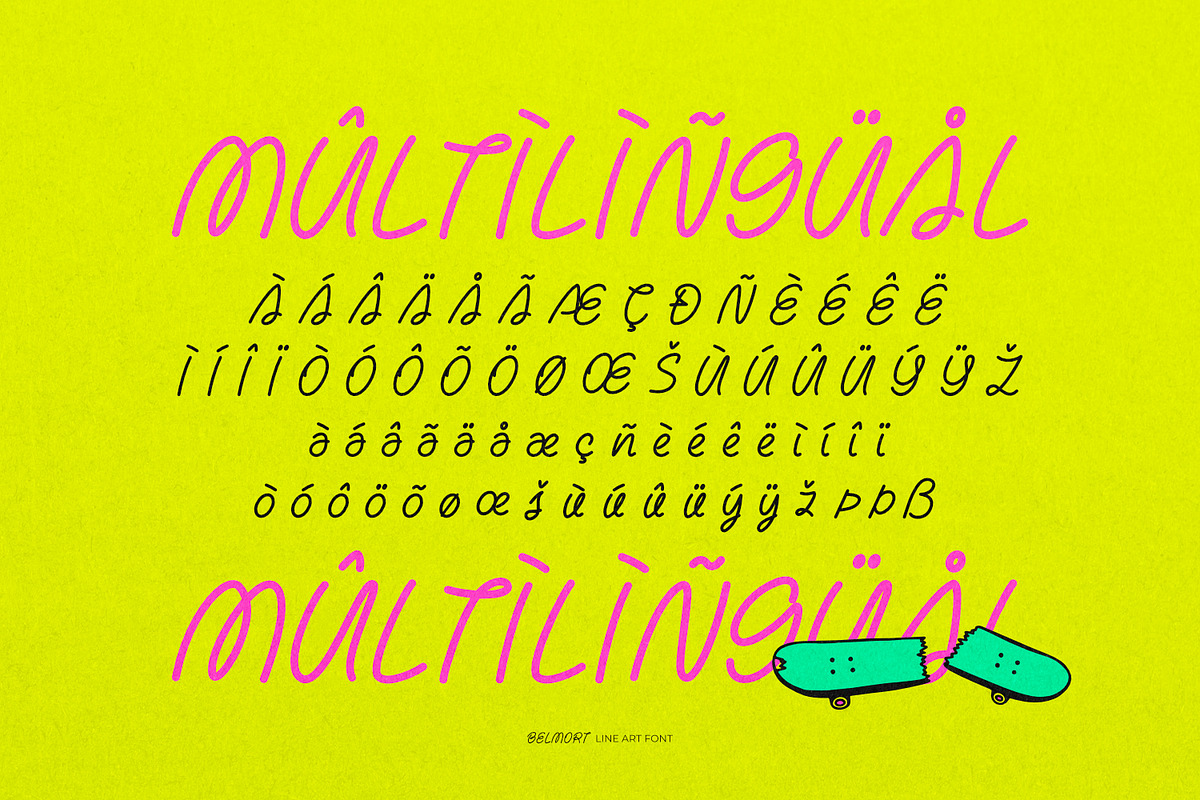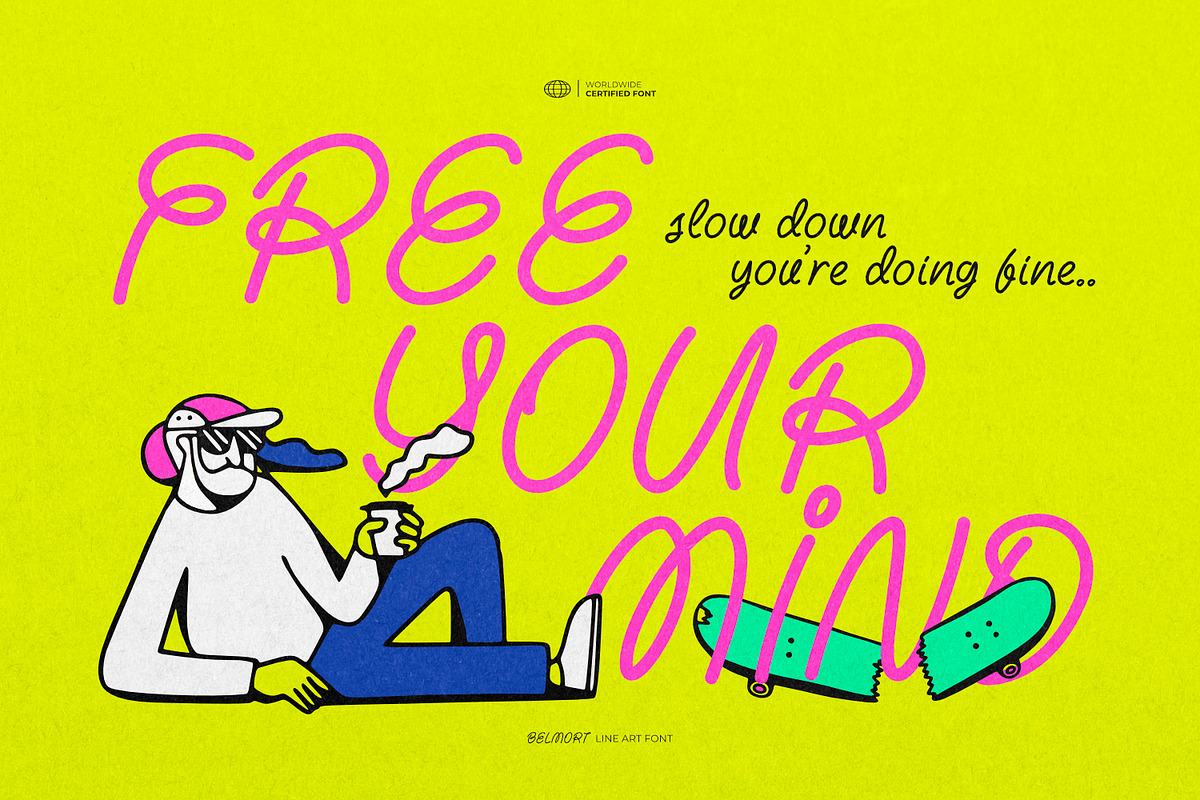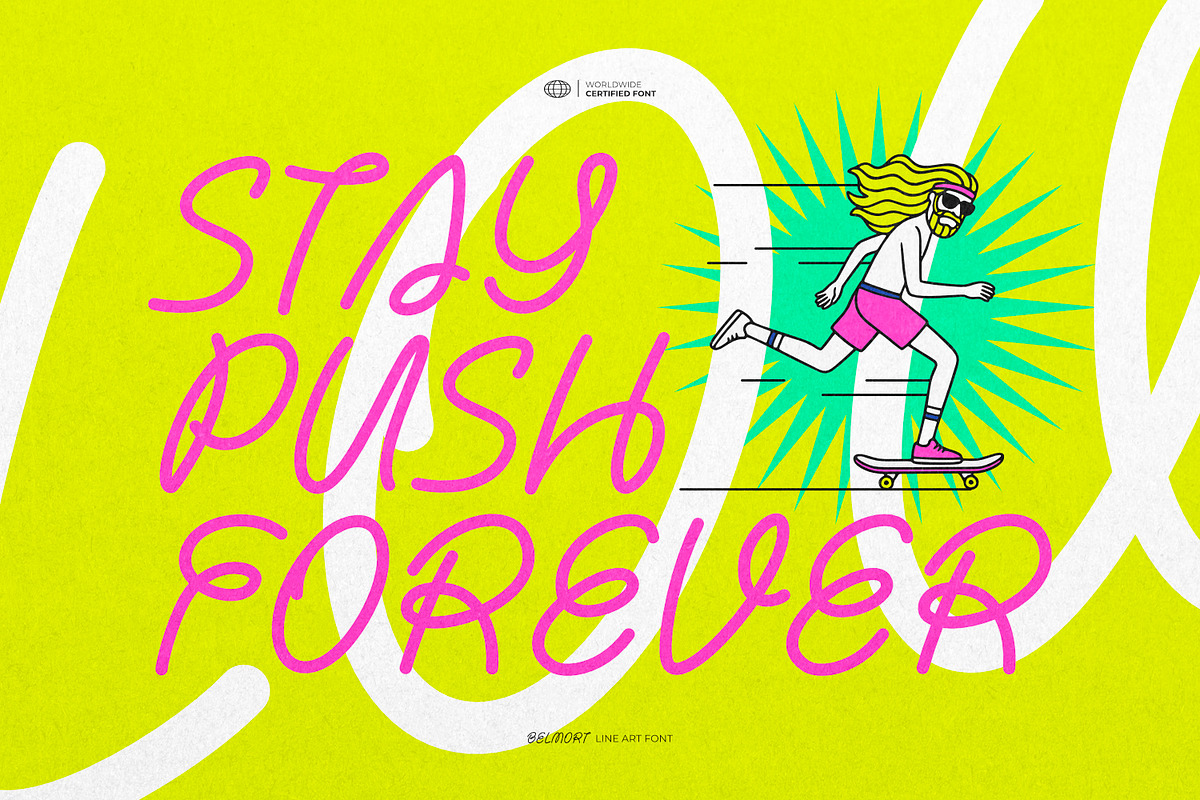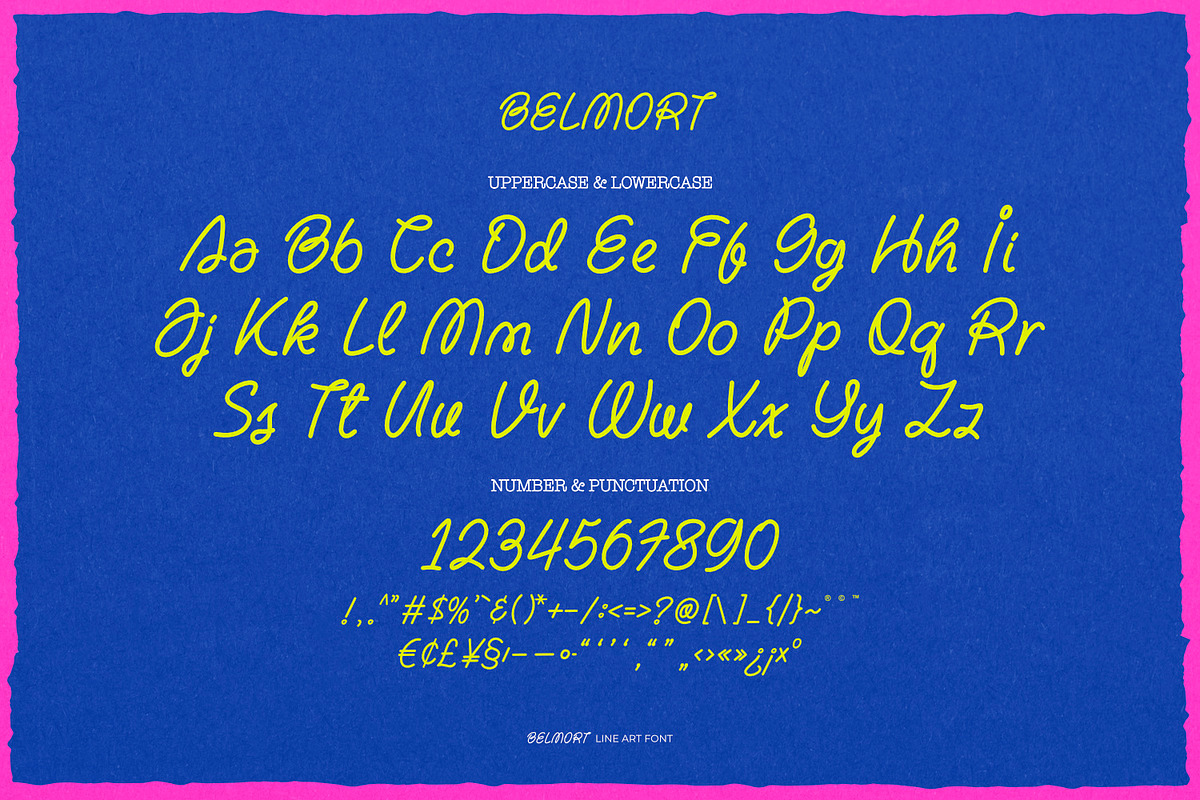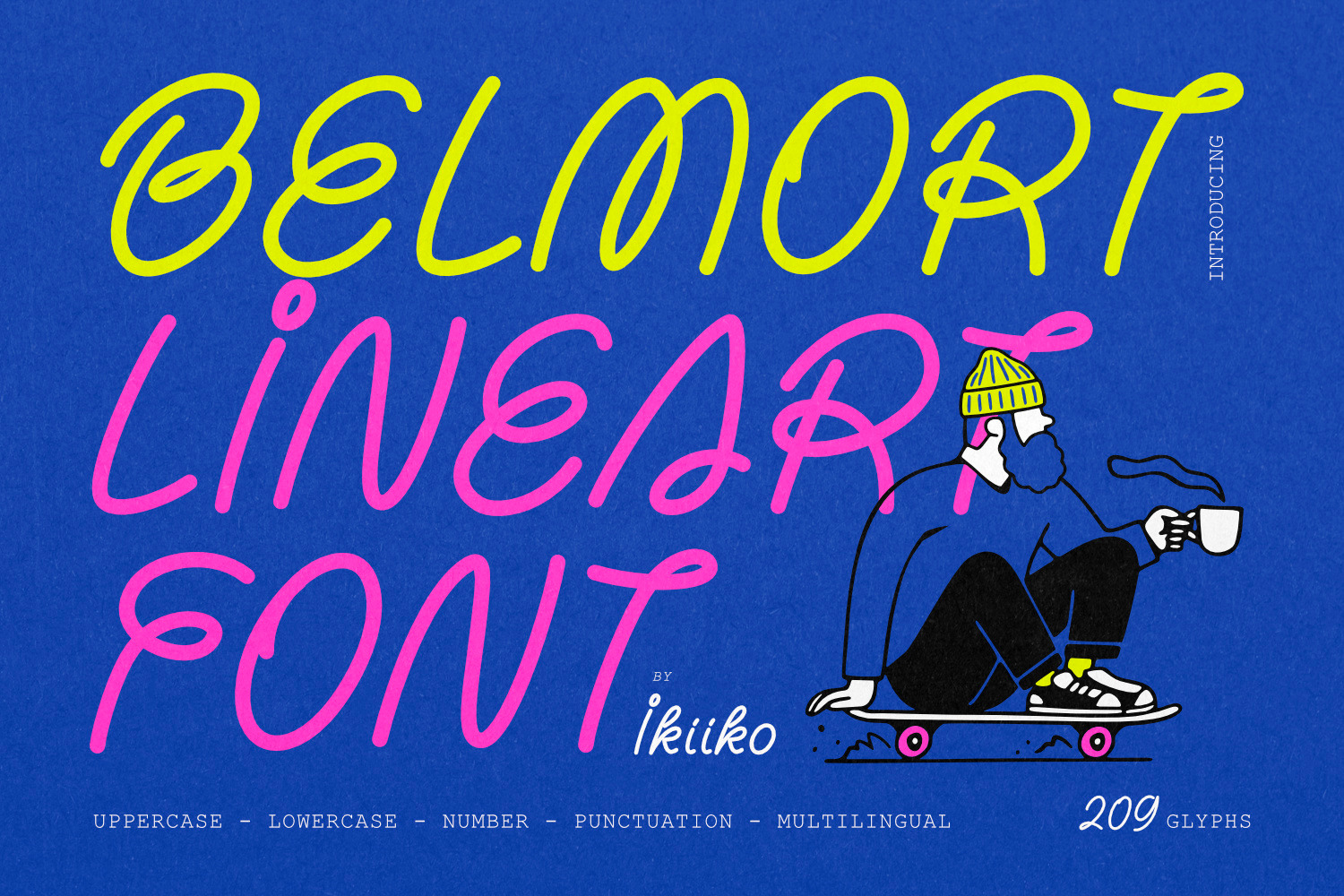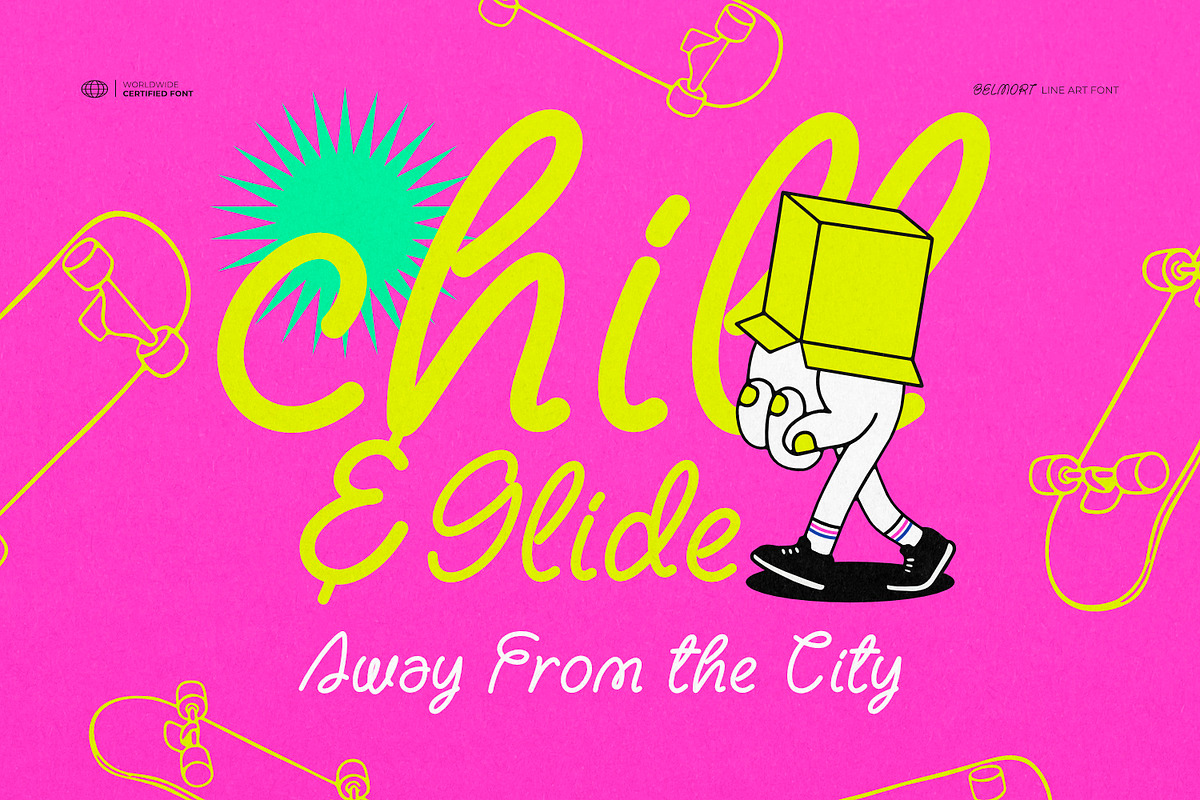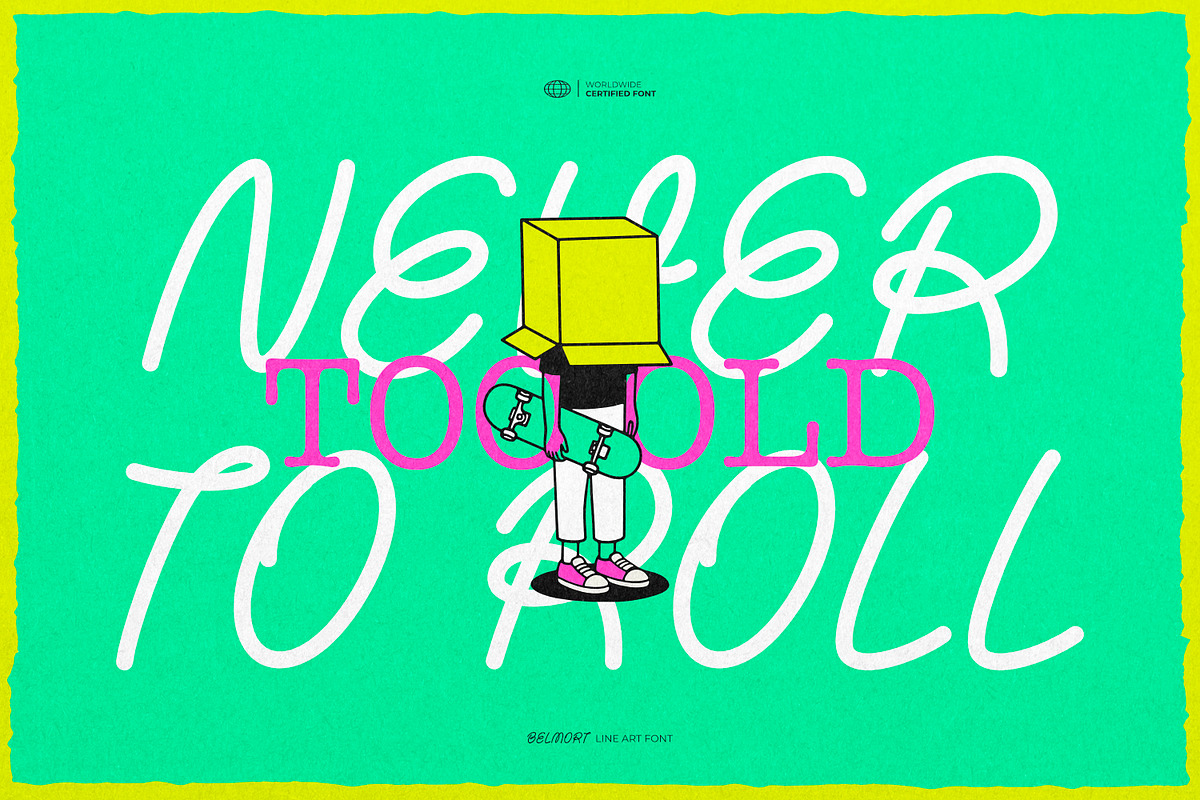
Belmort - Lineart Font
Proudly Present Belmort - Lineart Font, created by ikiiko
Belmort is a monoline lineart font built for creators who crave something handcraft, natural, and unmistakably edgy. Designed with a thin, slick flow, this typeface blends organic curves with clean line art aesthetics—perfect for brands with attitude, culture, and soul.
Inspired by modern hipster visuals and handcrafted street-market charm, Belmort delivers a raw yet refined energy. Every stroke feels intentional, giving your design an authentic handcrafted touch without losing that slick, minimalist vibe. From lifestyle brands to culture-driven visuals, this font adds the perfect mix of hipster personality and organic sophistication.